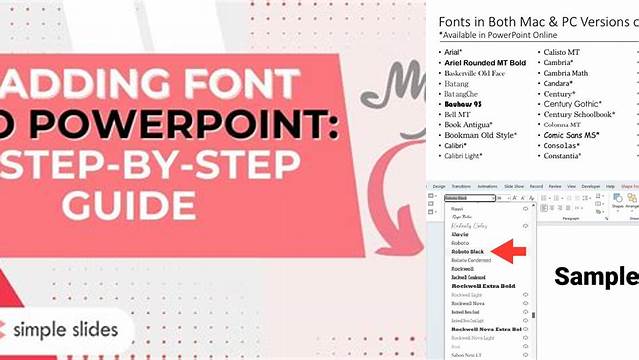
Download Fonts To PowerPoint: A Simple Guide
Hey guys! Ever felt like your PowerPoint presentations are missing that special something? It's often the fonts! A great font can make your slides pop and keep your audience engaged. But sometimes, the default fonts just don't cut it. So, how do you spice things up? You download new ones! This guide will walk you through the super easy process of downloading fonts in Microsoft PowerPoint, ensuring your presentations always look top-notch. Let's dive in and make your slides shine!
1. Why Use Custom Fonts in PowerPoint?
Why bother downloading new fonts when PowerPoint already has a bunch? Well, using custom fonts can really elevate your presentations. Think about it: a unique font can reinforce your message, match your brand, and generally make your slides look more professional and polished. Imagine you're giving a presentation on a tech startup – a sleek, modern font can convey innovation and forward-thinking. Or, if you're presenting on a historical topic, a classic serif font might be more appropriate. The right font sets the tone and helps you connect with your audience. Plus, let's be honest, seeing the same old fonts in every presentation can get a bit boring. Custom fonts add a fresh, creative touch that can keep your audience engaged and interested. So, ditch the default options and explore the vast world of fonts! You’ll be amazed at the difference it makes. Trust me, guys, it's a game-changer!
2. Where to Find Fonts for PowerPoint
Okay, so you're convinced custom fonts are the way to go. Great! But where do you actually find these fonts? Luckily, the internet is overflowing with options! There are tons of websites offering fonts, both free and paid, so you're sure to find something that fits your style and budget. Some popular sites like Google Fonts, DaFont, and Font Squirrel offer a huge selection of free fonts that are perfect for PowerPoint. These sites often have different categories and filters, making it easy to find the style you're looking for, whether it's sans-serif, serif, script, or something more decorative. Paid font foundries, such as MyFonts and Adobe Fonts, provide even more premium options, often with broader character sets and licensing options for commercial use. Before downloading, make sure to check the licensing terms to ensure the font can be used for your specific purpose, especially if you plan to use it for commercial projects. So, get browsing and discover the perfect font to make your PowerPoint presentations stand out!
3. Step-by-Step: Downloading Fonts from Google Fonts
Let's get practical! One of the easiest ways to get new fonts is through Google Fonts. It's a massive library of free, open-source fonts that are super easy to use. First, head over to the Google Fonts website. You'll see a huge selection of fonts, and you can use the filters to narrow down your search by categories like serif, sans-serif, handwriting, and more. Once you find a font you like, click on it. This will take you to the font's page, where you can see different styles (like bold, italic, etc.) and even type in sample text to see how it looks. To download, click the "Download family" button in the top-right corner. This will download a ZIP file containing the font files. Once the download is complete, you'll need to extract the files from the ZIP folder. Usually, you can do this by right-clicking the ZIP file and selecting "Extract All." Inside the extracted folder, you'll find the font files, usually in .ttf or .otf format. Now you're ready to install the font on your computer! We'll cover that in the next section. Easy peasy, right?
6. Activating Fonts in PowerPoint
Okay, you've downloaded and installed your fonts, but they're not showing up in PowerPoint? Don't panic! Sometimes you need to give PowerPoint a little nudge. The most common fix is simply restarting PowerPoint. When PowerPoint starts, it loads the list of available fonts from your system. If you installed a font while PowerPoint was running, it won't know about the new font until it restarts. So, close PowerPoint completely and then reopen it. Go to the font selection dropdown menu (usually in the "Home" tab), and your new font should be there! If you still don't see it, double-check that the font is properly installed on your system using the methods we discussed earlier for Windows and macOS. Sometimes a font might not install correctly, or there might be a compatibility issue. But usually, a quick restart of PowerPoint is all it takes to get your new fonts working. Now go make some awesome slides!
7. Troubleshooting Font Issues in PowerPoint
Sometimes, even with the best intentions, things can go a little wonky. Fonts might not display correctly, or PowerPoint might throw an error. Let's troubleshoot some common font issues, guys. One frequent problem is font incompatibility. Some fonts might not play nicely with PowerPoint, especially older fonts or fonts designed for other platforms. If you're having trouble with a specific font, try a different one to see if the issue persists. Another common issue is font corruption. If a font file is damaged, it might not install or display correctly. Try downloading the font again from a reliable source. If fonts appear pixelated or distorted, it could be a scaling issue. PowerPoint might be stretching the font in a way that makes it look bad. Try adjusting the font size or using a different font altogether. And as we mentioned before, restarting PowerPoint can often resolve many font-related issues. If all else fails, you might want to check your system's font settings or consider using a font management tool to help organize and troubleshoot your fonts. Don't let these issues discourage you – with a little troubleshooting, you'll be back to creating beautiful presentations in no time!
8. Best Practices for Using Fonts in Presentations
Now that you know how to download and install fonts, let's talk about using them effectively in your presentations. Just because you can use a million different fonts doesn't mean you should. Less is often more, guys! A good rule of thumb is to stick to a maximum of two or three fonts in your presentation. This keeps things consistent and professional-looking. Choose one font for your headings and another for your body text, and maybe a third for accents if needed. Make sure your fonts are legible. Fancy, decorative fonts can look cool, but if your audience can't read them, they're not doing their job. Stick to clear, readable fonts for body text, and use more decorative fonts sparingly for headings or emphasis. Consider your audience and the topic of your presentation. A playful, casual font might be great for a fun presentation, but it might not be appropriate for a serious business presentation. And finally, test your presentation on different computers. Sometimes fonts can display differently on different systems, so it's always a good idea to make sure your presentation looks the way you intended, no matter where you're presenting. Follow these best practices, and your presentations will not only look great but also be easy for your audience to read and understand.
9. Understanding Font Licensing
Font licensing can seem a bit complicated, but it's important to understand the basics to avoid any legal issues. When you download a font, it comes with a license that specifies how you're allowed to use it. Many free fonts have licenses that allow for personal and commercial use, but it's always a good idea to check the specific terms. Commercial use means you can use the font in projects that you're selling or using to promote your business. Some licenses might restrict commercial use or require attribution to the font designer. Paid fonts usually have more comprehensive licenses that cover a wider range of uses, but they also come with a cost. It's crucial to read the license agreement carefully before using a font, especially for commercial projects. If you're unsure about the licensing terms, it's always best to err on the side of caution and contact the font designer or foundry for clarification. Using a font without the proper license can lead to legal trouble, so it's worth taking the time to understand the rules. Let's keep it legal, guys!
10. Free vs. Paid Fonts: Which to Choose?
Okay, the age-old question: free fonts or paid fonts? Both have their pros and cons, so let's break it down. Free fonts are obviously appealing because, well, they're free! There are tons of great free fonts available, especially from sources like Google Fonts and DaFont. Free fonts are perfect for personal projects or presentations where you don't want to spend any money. However, free fonts might have limitations. They might not have as many styles (like bold, italic, etc.) as paid fonts, and they might not have as extensive character sets (meaning they might not support certain languages or symbols). Paid fonts, on the other hand, often offer a higher level of quality and more features. They usually have more styles, broader character sets, and better support. Paid fonts are a good choice for professional projects where you need a consistent, high-quality look. They also often come with more flexible licensing options for commercial use. Ultimately, the best choice depends on your budget, your needs, and the specific project you're working on. If you're just starting out, free fonts are a great way to go. But if you're serious about design, investing in some high-quality paid fonts can be a worthwhile investment. It's all about finding the right balance, guys!